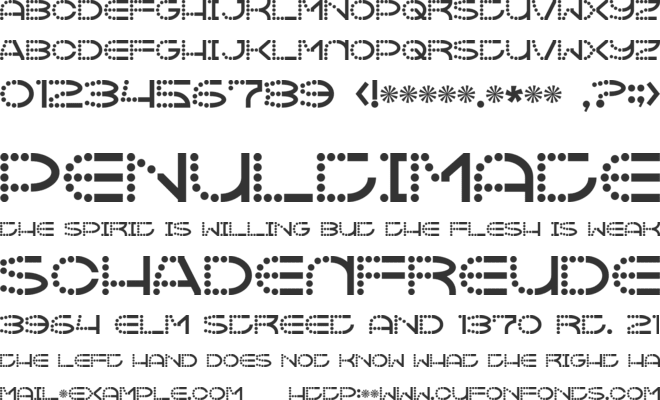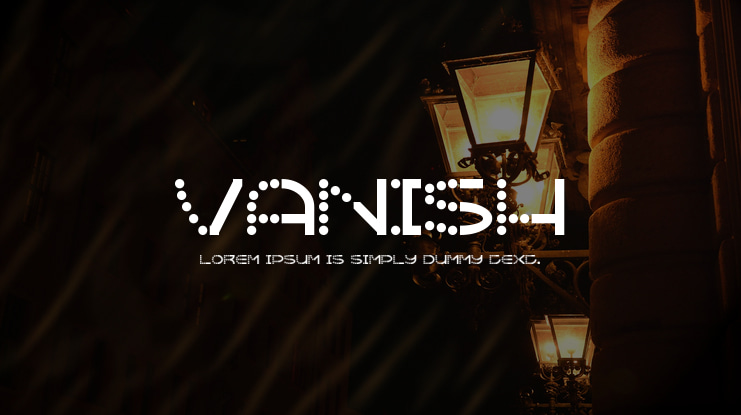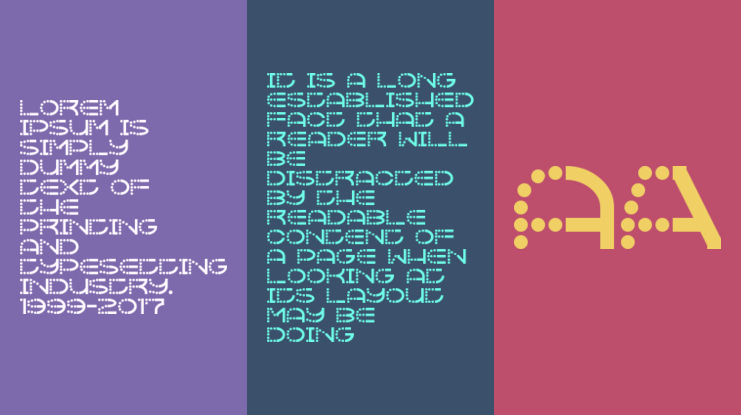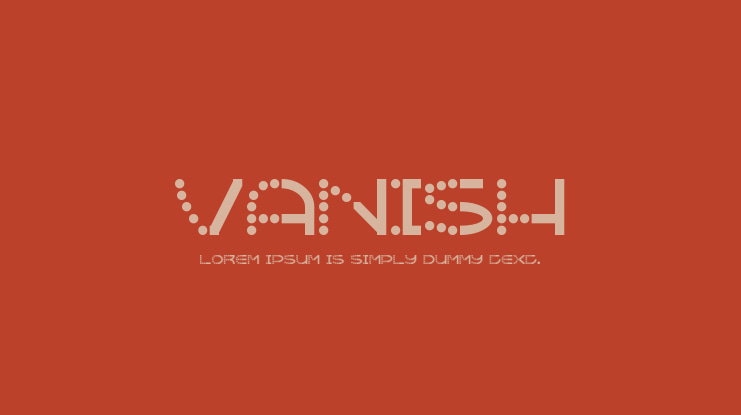
Vanish Font
This is a sort of techno font, the left part of the font is pixelated with circles, while the right part is build up of filled lines and curves. At first I didn't care for this one, but as time went by, I really got feelings for this baby! 8)